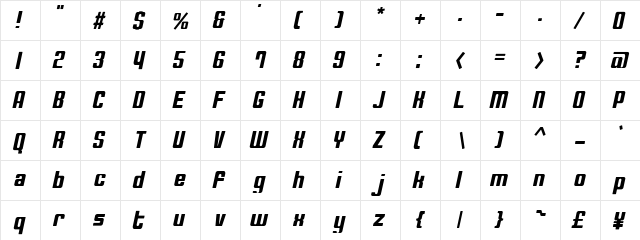
Compact20 Regular Font Preview
Compact20 Regular
Design Context for Compact20 Typeface
Compact20 offers clean, dependable letterforms without strong stylistic allegiance, making it a practical choice for designers who need flexibility. The condensed width makes it efficient for tight spaces without sacrificing legibility.